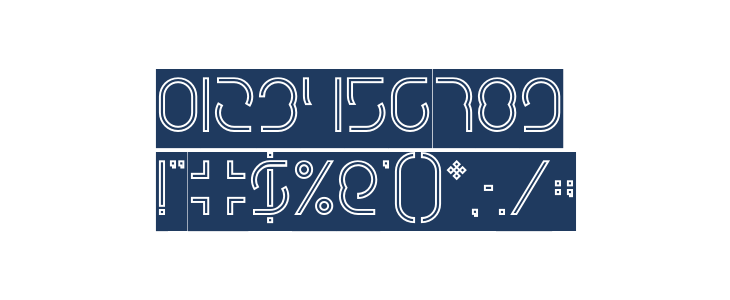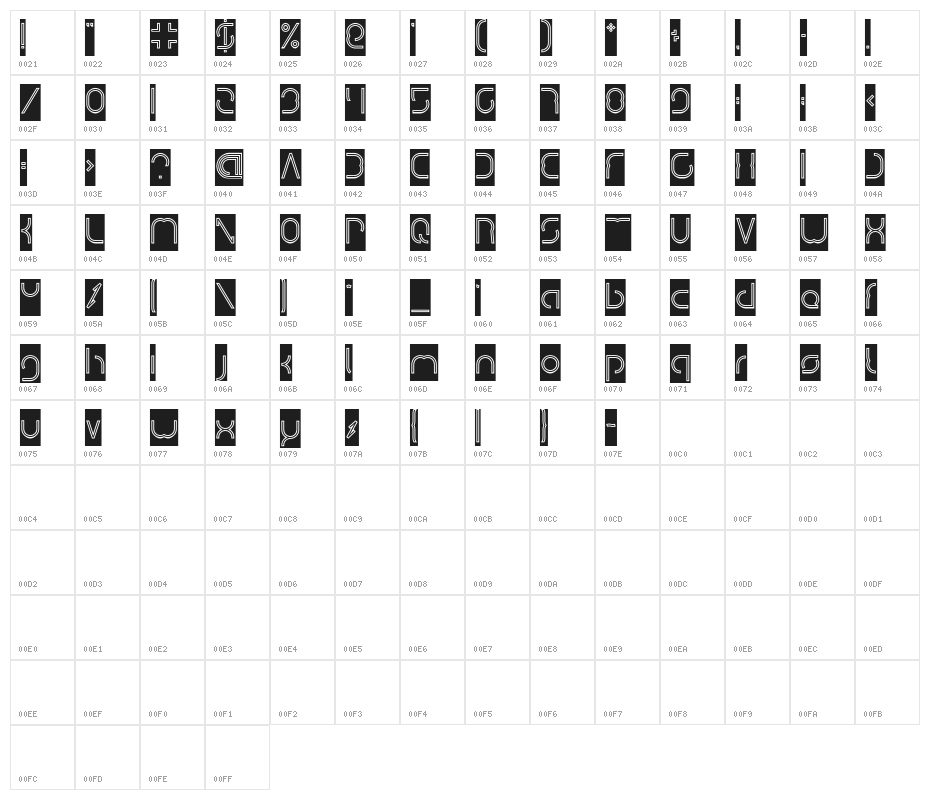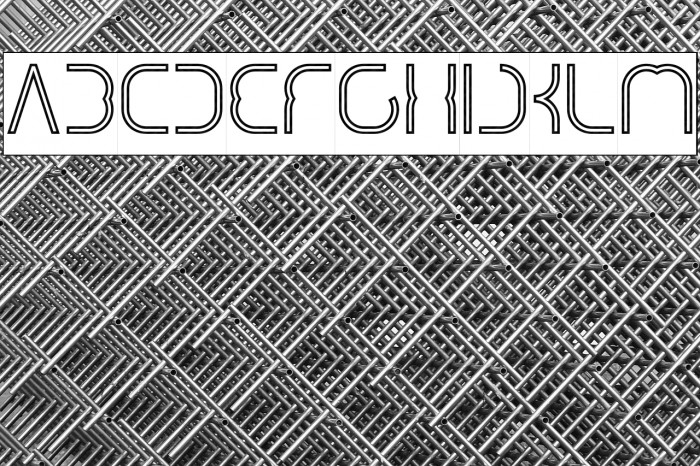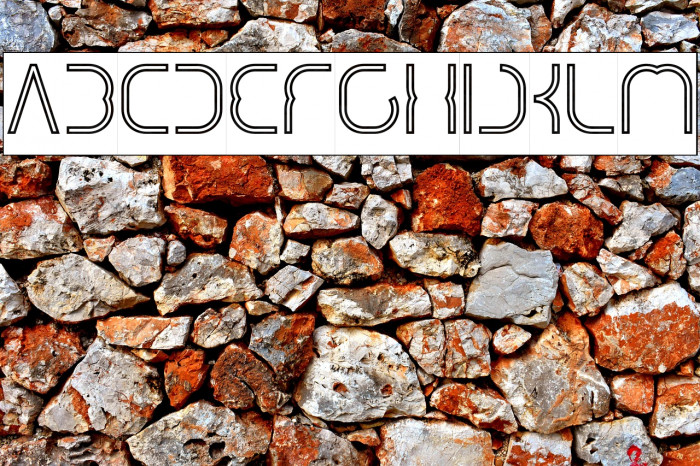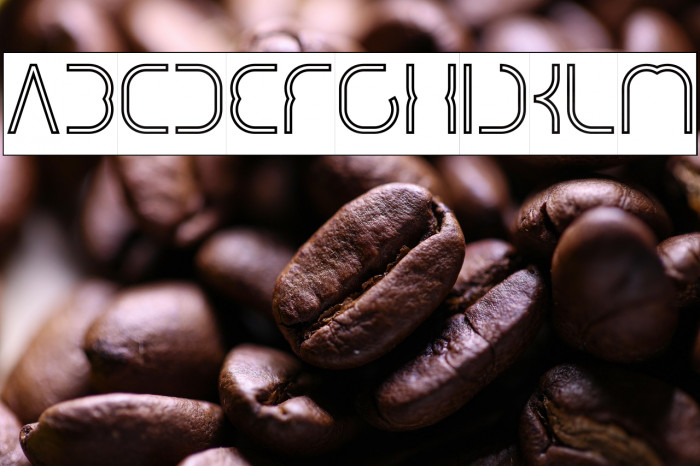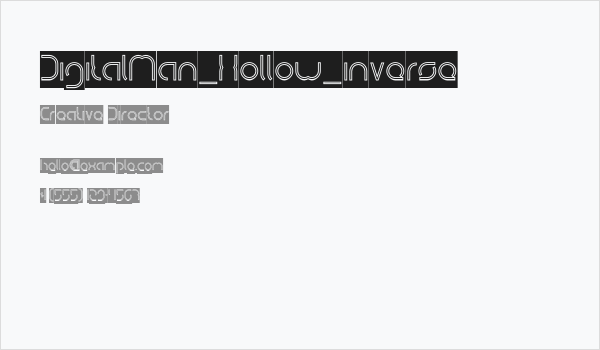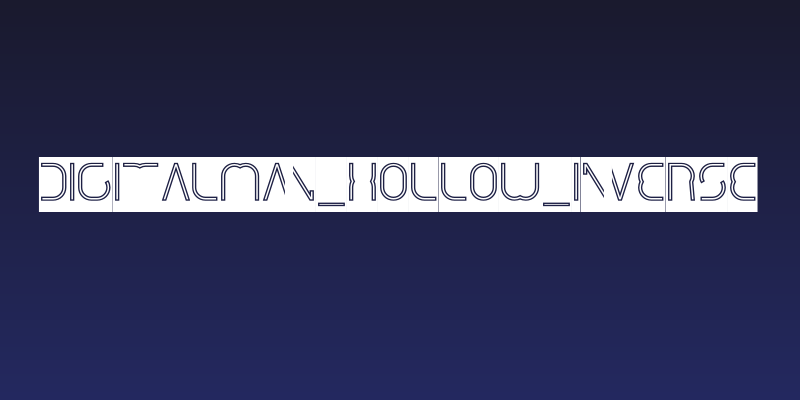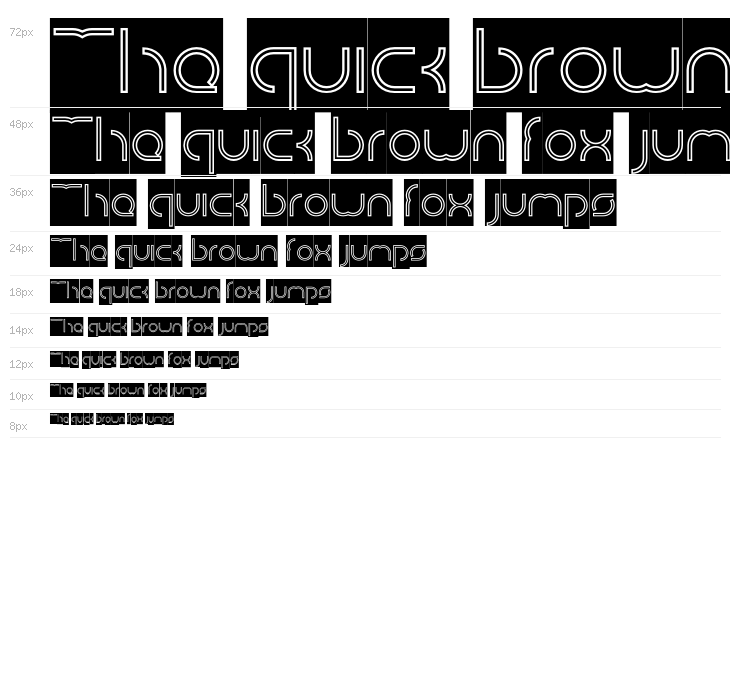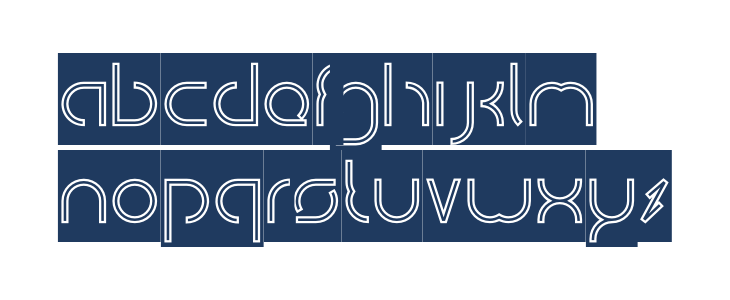
DigitalMan_Hollow_inverse Font
DigitalMan_Hollow_inverse Description
This font features a futuristic and digital aesthetic with hollow, outlined characters that give it a unique, modern look. The uppercase and lowercase letters maintain a consistent style, characterized by geometric shapes and clean lines. The numerals and special characters follow the same design principles, ensuring uniformity across the typeface. The hollow design creates a sense of lightness and openness, making it suitable for digital and tech-related themes. The font's structure is both bold and minimalistic, offering a striking visual impact while maintaining readability.